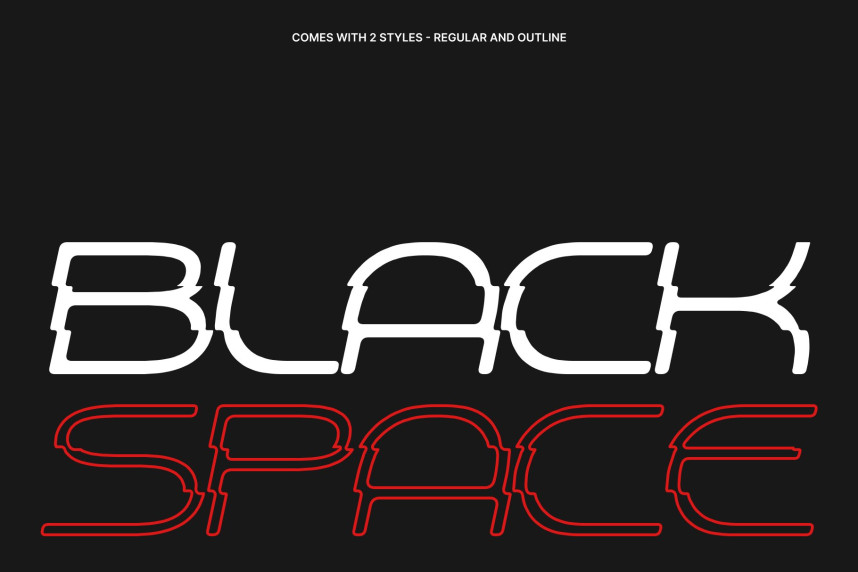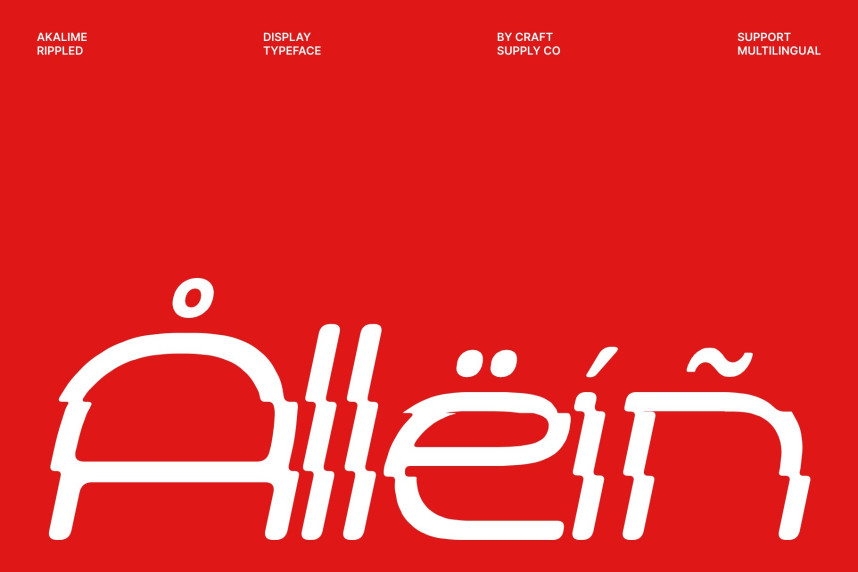
Akalime Rippled Font
Akalime Rippled Font – Monoline Sans Serif Font: Where Minimalist Clarity Meets Fluid Wave Motion
Clean Monoline Structure with Modern Appeal
This is a monoline sans serif font designed with clean, consistent strokes that create a seamless and contemporary visual aesthetic. Its balanced proportions and minimalist construction embody modern design sensibilities, offering typography that feels refined, approachable, and highly versatile across both print and digital media.